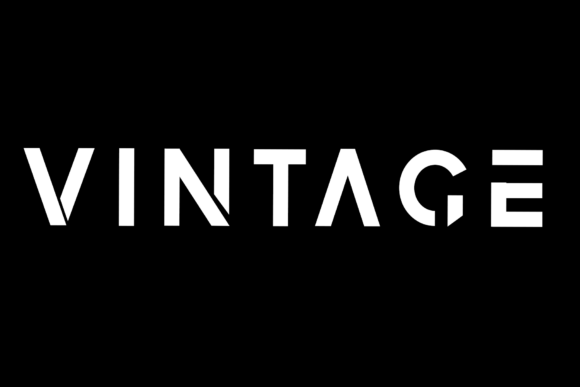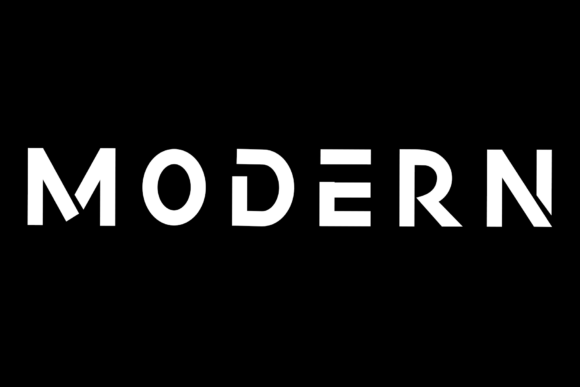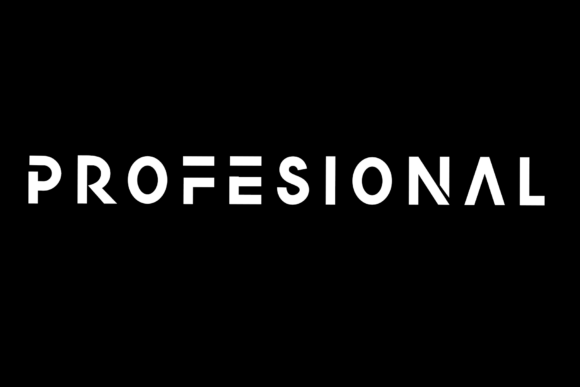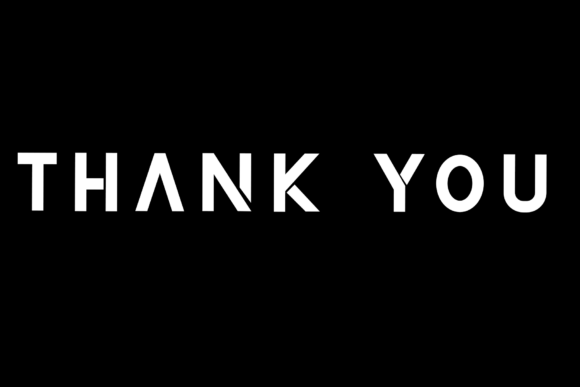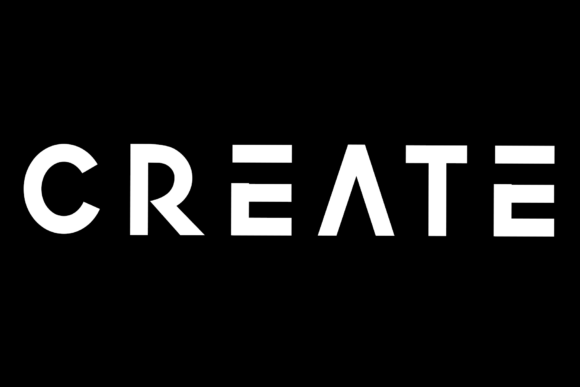
Create Font: Elevate Your Designs with a Unique and Versatile Typeface
In the world of design, typography plays a crucial role in conveying messages, expressing creativity, and capturing audiences’ attention. Among the numerous fonts available, “Create” stands out as a beautiful and eye-catching typeface that can elevate your designs to the next level. Designed with a soft, unique touch, Create Font is perfect for designers, crafters, and creative professionals seeking a distinctive and versatile font for their projects.
The Distinctive Characteristics of Create Font
Create Font boasts distinctive strokes that give it a special character, making it meaningful and versatile for future use. Its unique design elements set it apart from other fonts, allowing designers to add a personal touch to their creations. With a wide range of characters, Create Font is ideal for various design projects, crafts, and other creative works.
Key Features of Create Font
• Unique and Soft Design: Create Font features a soft, unique touch that sets it apart from other fonts.
• Distinctive Strokes: The font’s distinctive strokes give it a special character, making it meaningful and versatile.
• Variety of Characters: Create Font comes with a wide range of characters, perfect for design projects, crafts, and other creative works.
Applications of Create Font
Create Font’s natural font style makes it an ideal choice for a wide range of products, including:
• Design Projects: Use Create Font to add a personal touch to your designs, making them more appealing to your audience.
• Crafts: The font’s unique design elements make it perfect for craft projects, such as handmade cards, invitations, and DIY materials.
• Creative Works: Create Font is suitable for various creative works, including art, illustration, and graphic design.
Benefits of Using Create Font
By incorporating Create Font into your designs, you can:
• Enhance Your Designs: The font’s unique design elements will add a personal touch to your creations, making them more appealing to your audience.
• Stand Out from the Crowd: Create Font’s distinctive strokes will set your designs apart from others, making them more memorable.
Tips for Using Create Font Effectively
To get the most out of Create Font, consider the following tips:
• Experiment with Different Sizes: Create Font looks great in various sizes, so experiment to find the perfect fit for your design.
• Pair with Other Fonts: Combine Create Font with other fonts to create a unique and visually appealing design.
• Use in Digital and Print Materials: The font’s versatility makes it suitable for both digital and print materials, including social media graphics, brochures, and posters.
Create Font is a beautiful and eye-catching typeface that can elevate your designs to the next level. Its unique design elements, versatility, and compatibility with various applications make it an ideal choice for designers, crafters, and creative professionals. By incorporating Create Font into your designs, you can add a personal touch, stand out from the crowd, and increase the appeal of your creations.